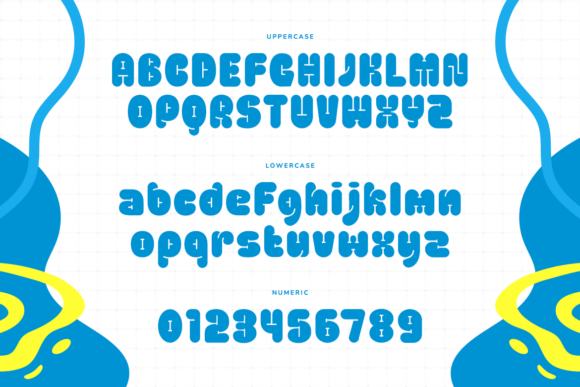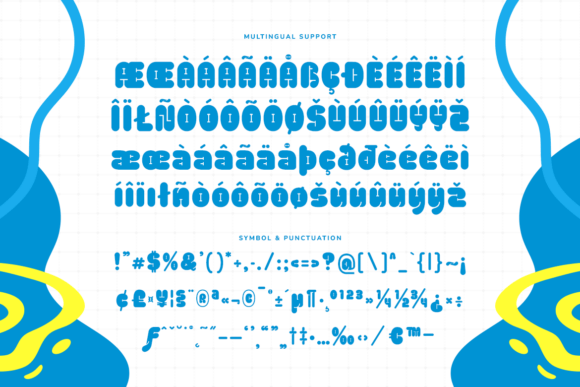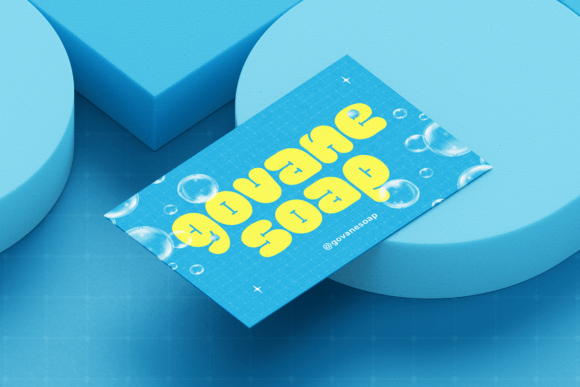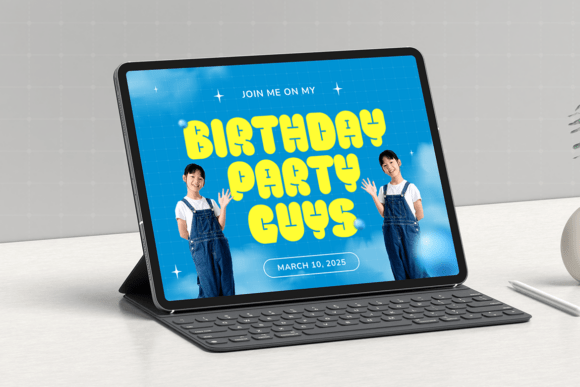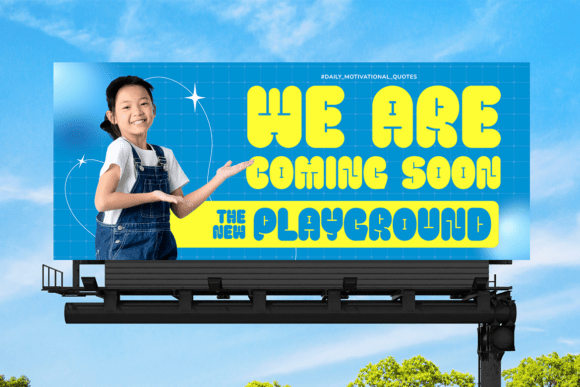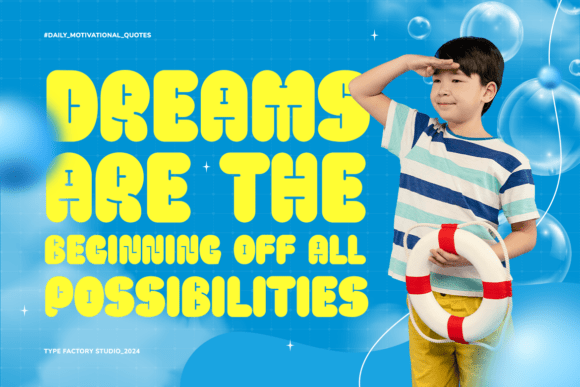
Introduction to Piney Font
Have you ever found yourself brainstorming ideas for a new design project, only to be stuck on the perfect font to match your creative vision? We’ve all been there – scrolling through endless font options, trying to find that one special something that brings our ideas to life. But what if I told you there’s a font that’s sure to make your design shine? Meet the Piney Font, a funky and playful display font that’s about to become your new go-to design resource.
With its soft, bubbly letterforms and thick strokes, the Piney Font is the perfect choice for any creative project that needs a little extra personality. Whether you’re designing a birthday invitation, a poster, or a social media graphic, this high-quality font is sure to make your text stand out. And the best part? It’s available for free download, complete with a transparent background, so you can easily integrate it into your design without any hassle.
Key Features of Piney Font
- Piney Font is a high-quality design resource ideal for creative projects, offering a unique and elegant style.
- The font features a transparent background, allowing for seamless integration with various design elements.
- Piney Font is designed to be highly versatile, suitable for use in a wide range of creative projects, from logos to typography.
- Piney Font is designed to be highly legible, even at small font sizes, making it an excellent choice for digital and print applications.
Honest Review: Piney Font
I recently came across the Piney Font, a design resource that caught my attention for its unique and quirky feel. As a designer, I appreciate high-quality fonts that can elevate my creative projects, and Piney Font definitely delivers.
What works well is its versatility – the font comes in various weights, making it perfect for a wide range of design applications. The transparent background allows for seamless integration with any design element, and the free download is a bonus for designers on a budget.
- ✨ Unique and quirky feel
- ✨ Versatile, with various weights available
However, there are some limitations to consider. The font may not be suitable for formal or corporate designs, as its playful nature may not align with the tone of these projects. Additionally, some users may find the font’s quirks too distracting or overwhelming.
Overall, I’m impressed with the Piney Font, and I think it’s a great addition to any designer’s toolkit. While it may not be suitable for every project, its unique charm and versatility make it a valuable resource for creative designers.
Piney Font
Piney Font is a high-quality design resource perfect for any creative project. Its unique style and transparent background make it a versatile choice for designers.
Tips for Getting the Most Out of Piney Font
To get the most out of Piney Font, use it in conjunction with other design elements, such as graphics and images. You can also experiment with different font sizes, colors, and styles to create a unique look.
Common Use Cases for Piney Font
Piney Font is perfect for a variety of creative projects, including logos, business cards, and marketing materials. It’s also a great choice for personal projects, such as scrapbooking and photography.